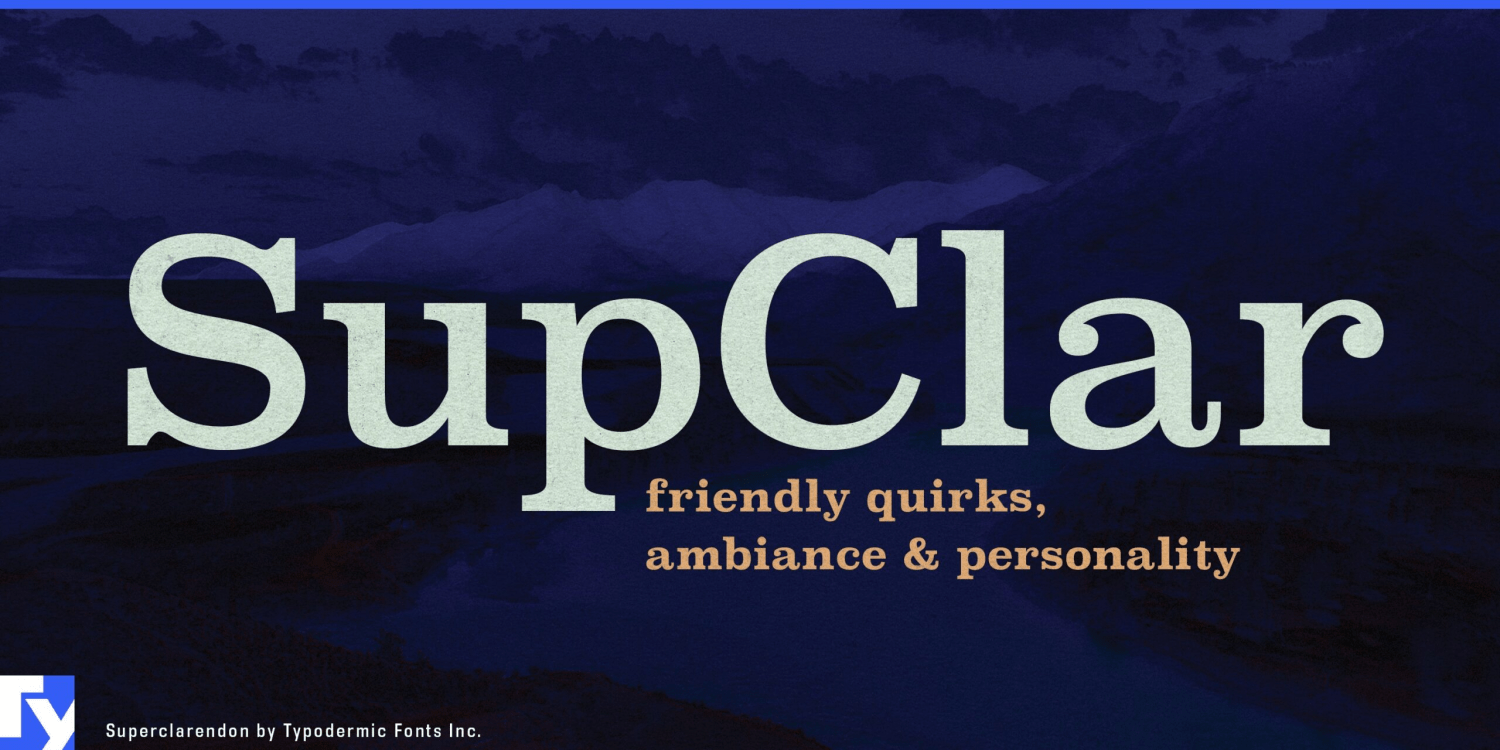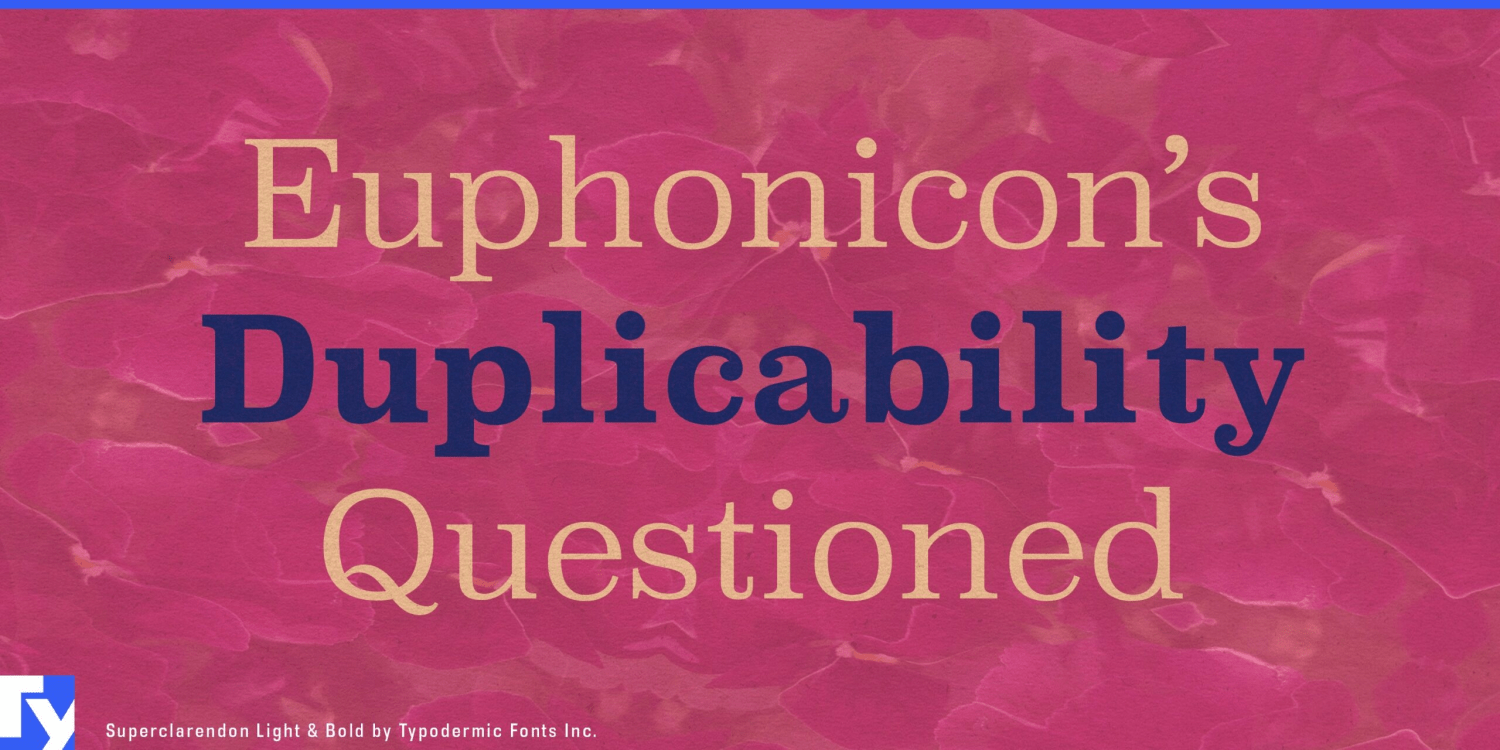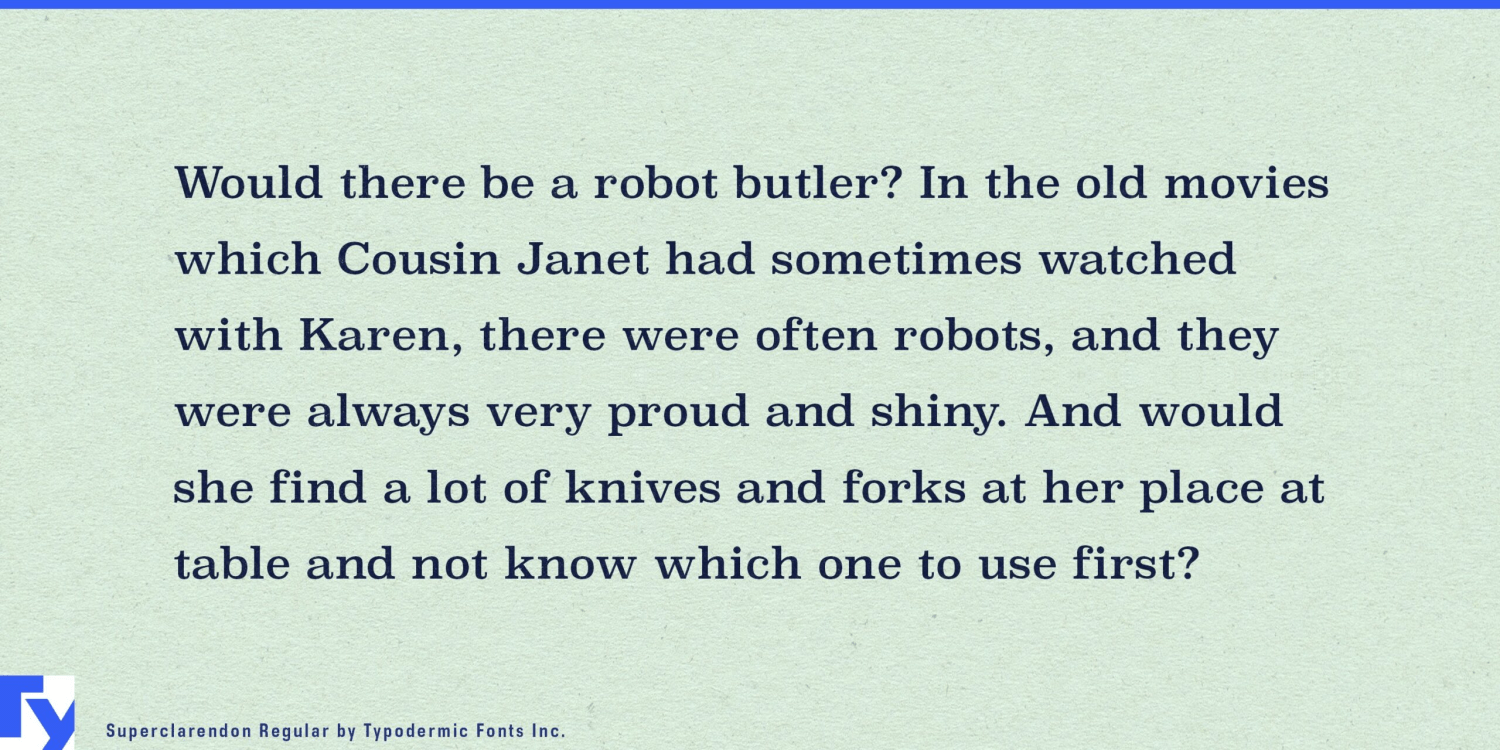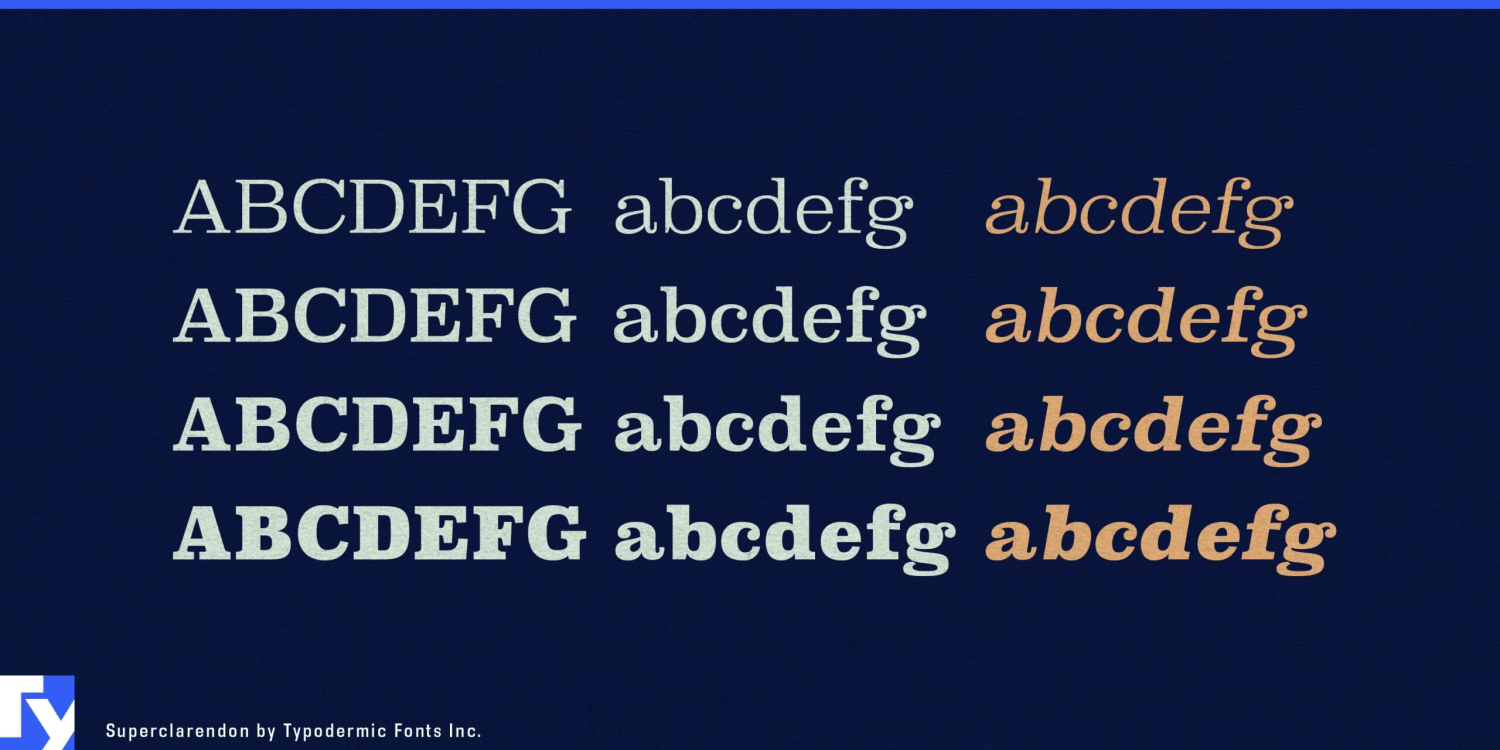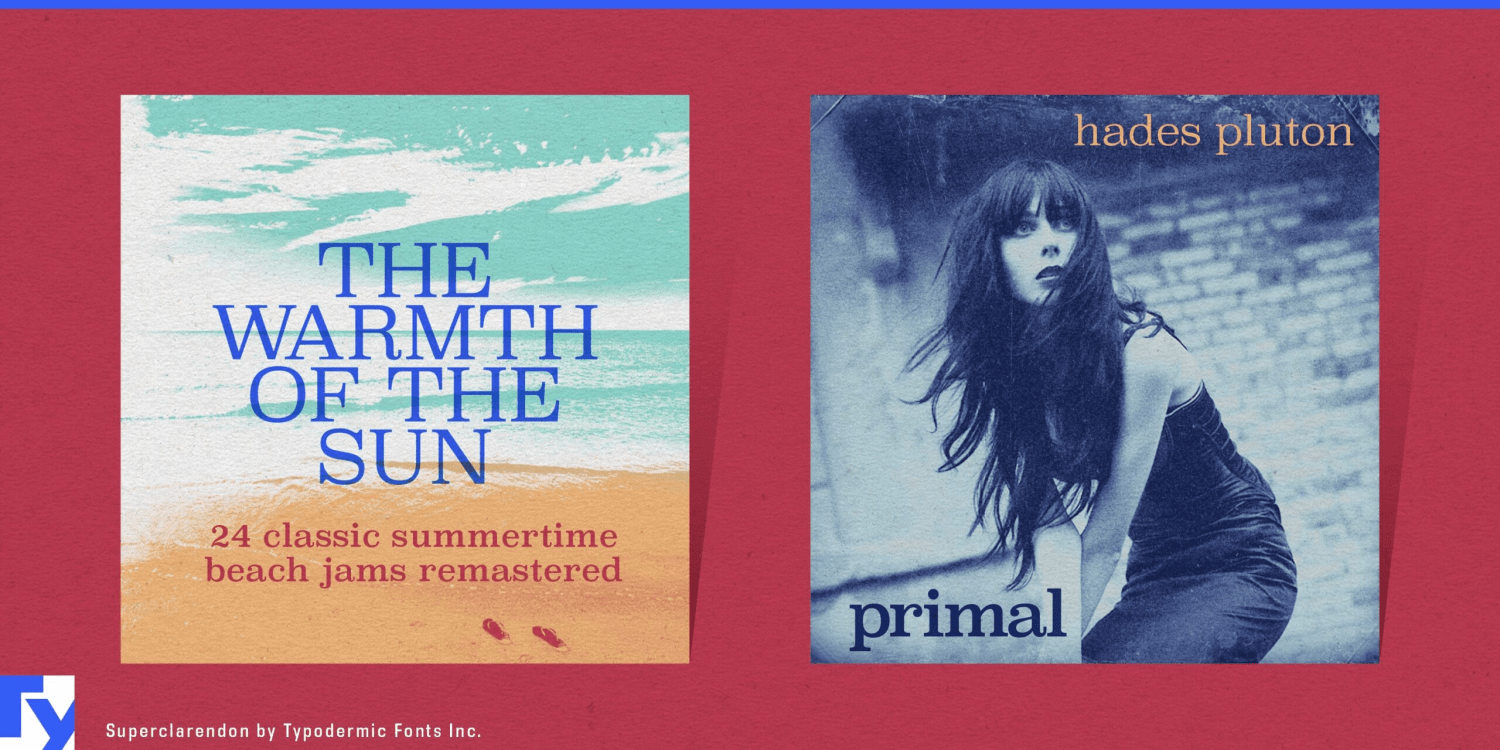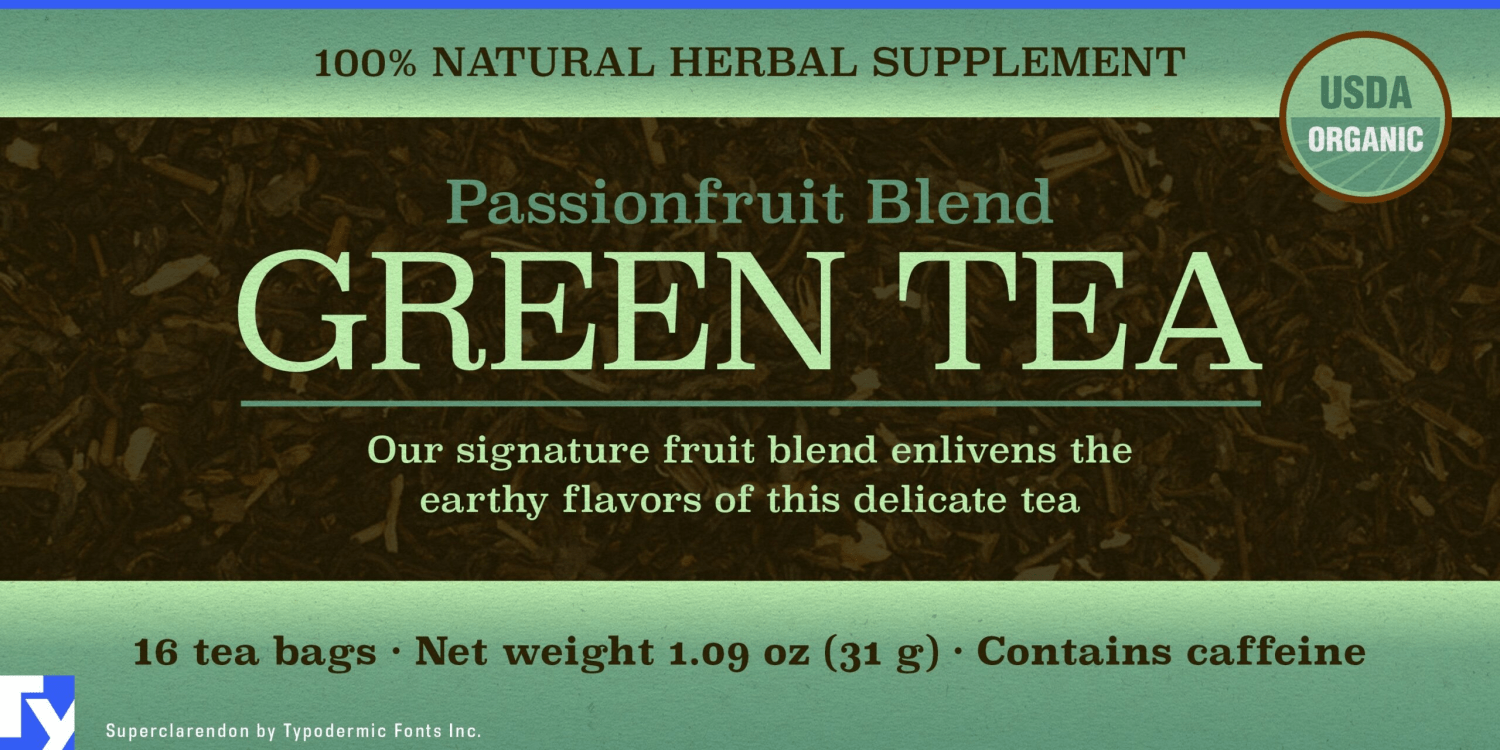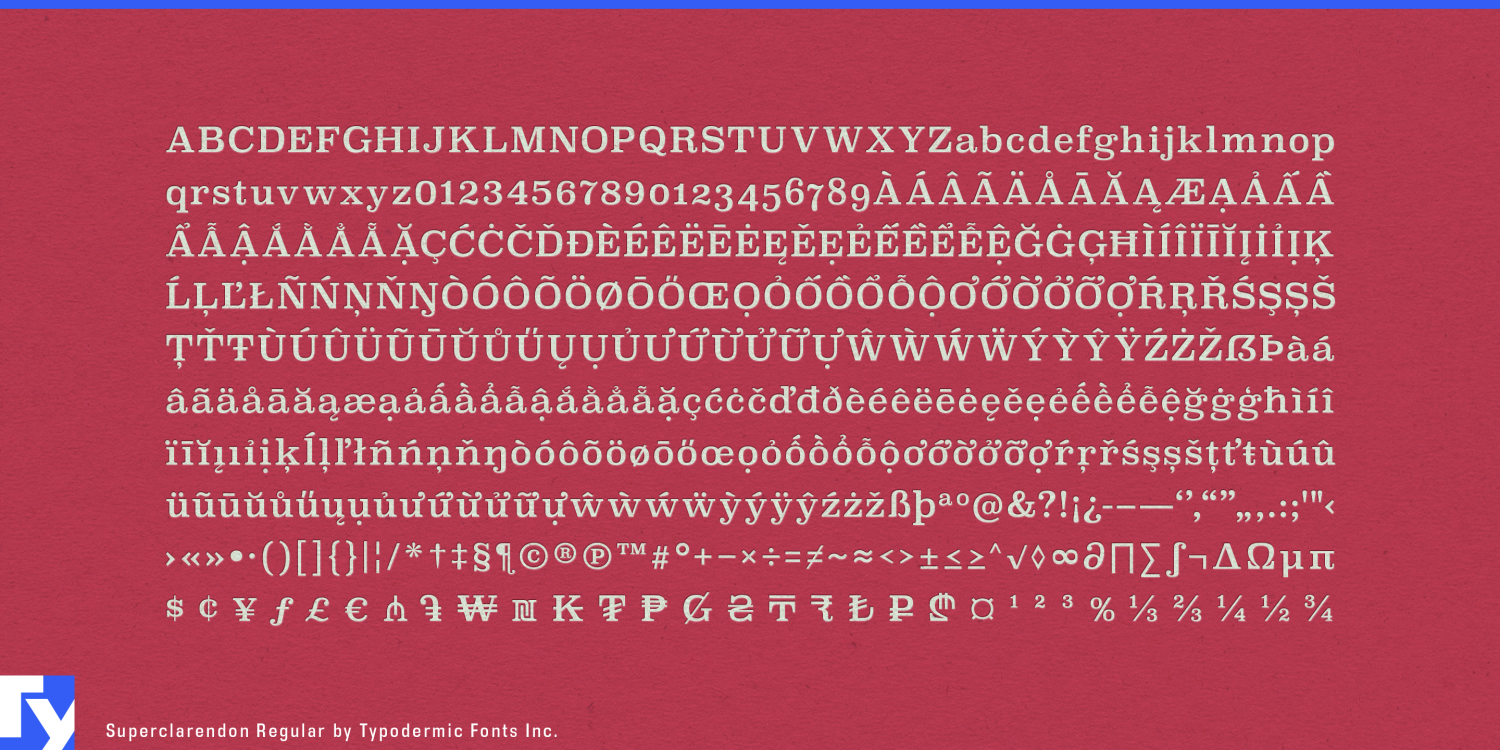
Superclarendon
Font Family by Typodermic
Many brand serifs are chosen for one glamorous word and abandoned when the explaining begins. The logo gets character; product descriptions, interviews, recipes and care guides fall back to an anonymous sans. Superclarendon is built to stay in the system. Its broad forms give names and headlines substantial presence, while its clear lowercase carries the editorial layer beneath them.
Superclarendon takes the familiar solidity of a Clarendon and pushes it toward a cleaner, more expansive construction. Substantial bracketed slabs create weight and stability; subtly squared curves keep the design from becoming quaint or excessively traditional. The historical flavor remains available, but it does not dictate sepia paper, distressed printing or period styling. Superclarendon sits comfortably beside bright color, contemporary photography, motion graphics and modern interface typography.
That range suits consumer brands that increasingly behave like publishers. A pantry company may need a package name, ingredient story, recipe card and producer interview. A cookware maker may publish care instructions, technique guides and product comparisons. Outdoor and home-goods companies create repair pages, owner stories, printed inserts and ecommerce features. Superclarendon can connect the product name with the material surrounding it across cartons, labels, campaign headlines, pull quotes and short editorial passages.
Cultural media creates a similar hierarchy problem. Documentary series, interview platforms, podcasts, museum programs and cultural magazines need typography for title cards, episode names, quotations, introductions and explanatory copy. A high-contrast serif can make the subject feel rarefied; a neutral sans can reduce it to generic streaming content. Superclarendon provides enough graphic mass for the title while remaining direct in the story that follows.
Its Clarendon character is still useful when history matters. Founding dates, anniversary editions, archive features, product retrospectives and reissue campaigns gain a sense of continuity without forcing the project into historical costume. Old-style numerals give dates, editions and timelines an additional layer of distinction.
Superclarendon’s width wants room. It is strongest in mastheads, product names, feature openings, captions, pull quotes and short-to-medium passages rather than compressed legal copy or dense interface text. A quieter companion sans can handle navigation, specifications and compact data while Superclarendon supplies the editorial character shared across the rest of the system.